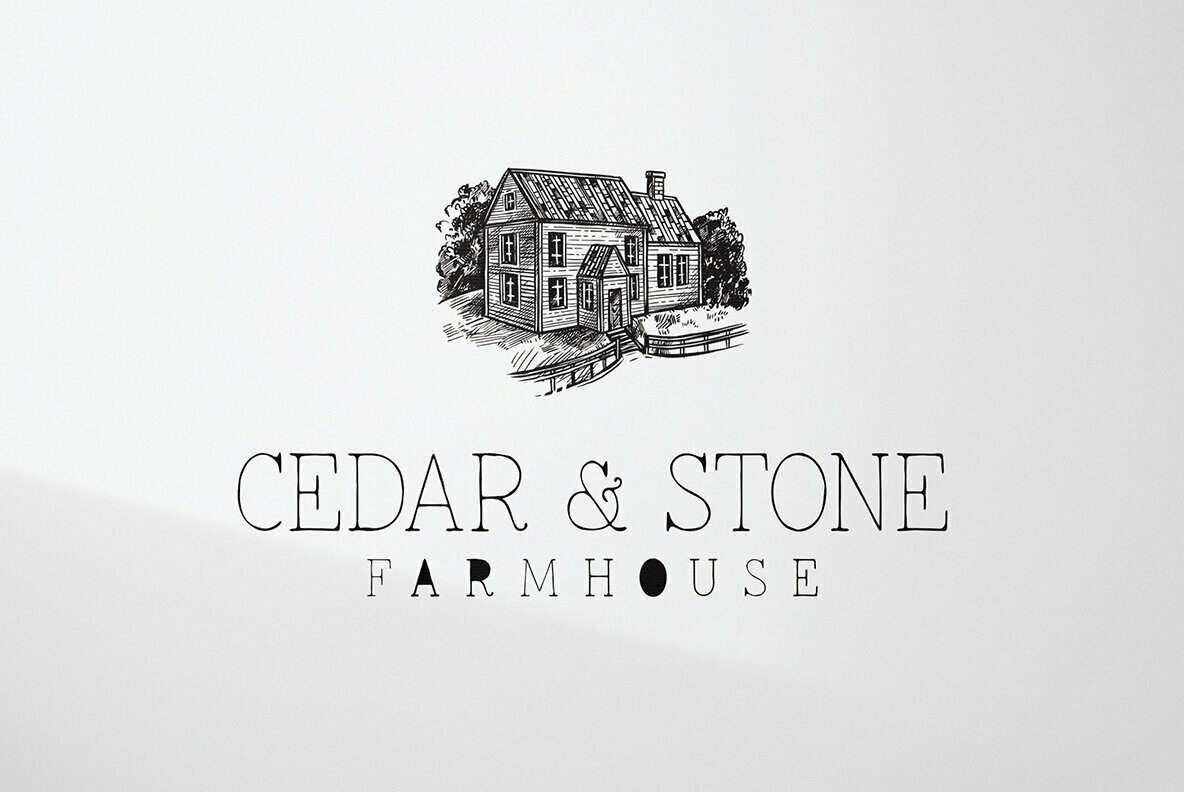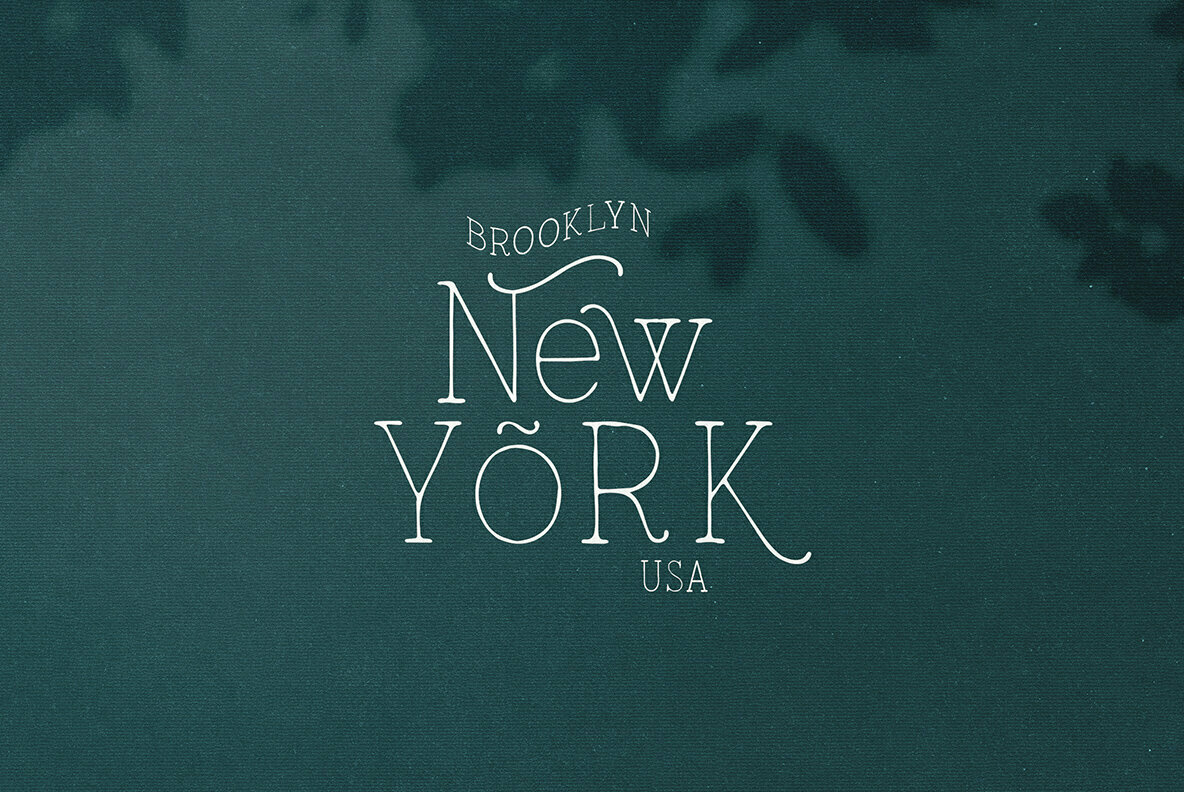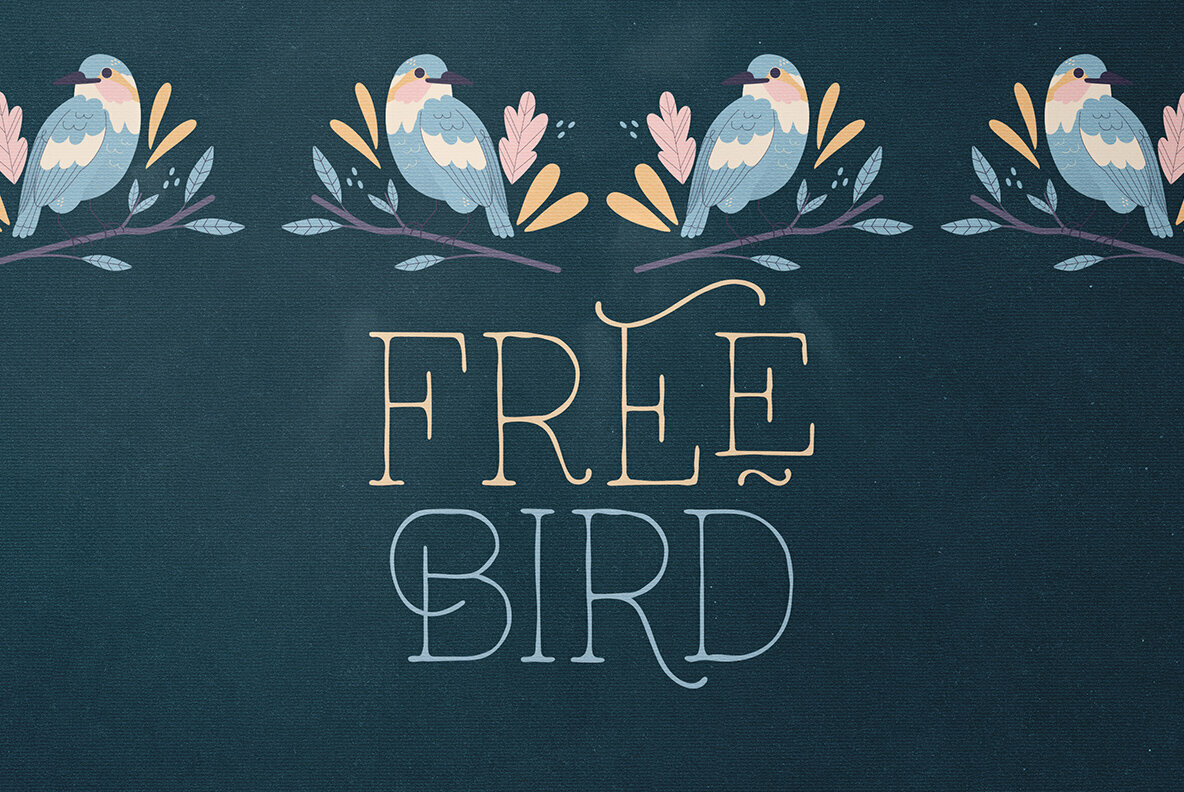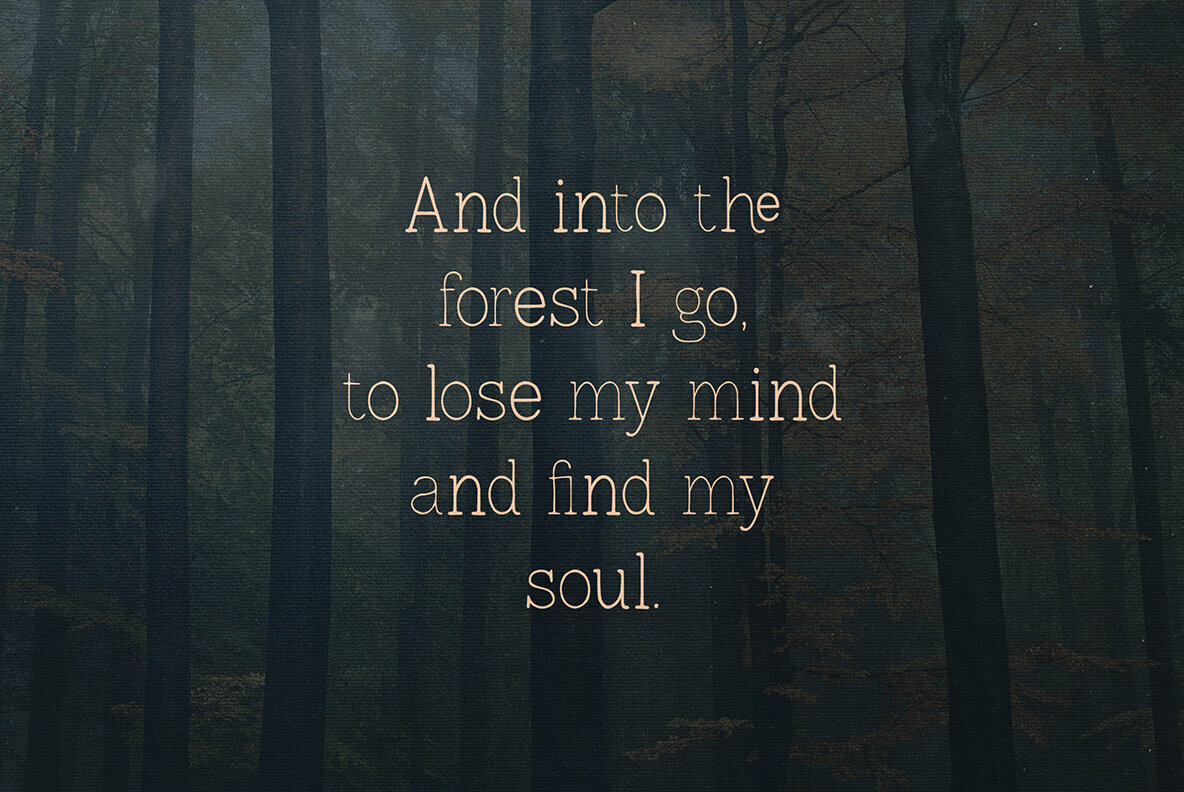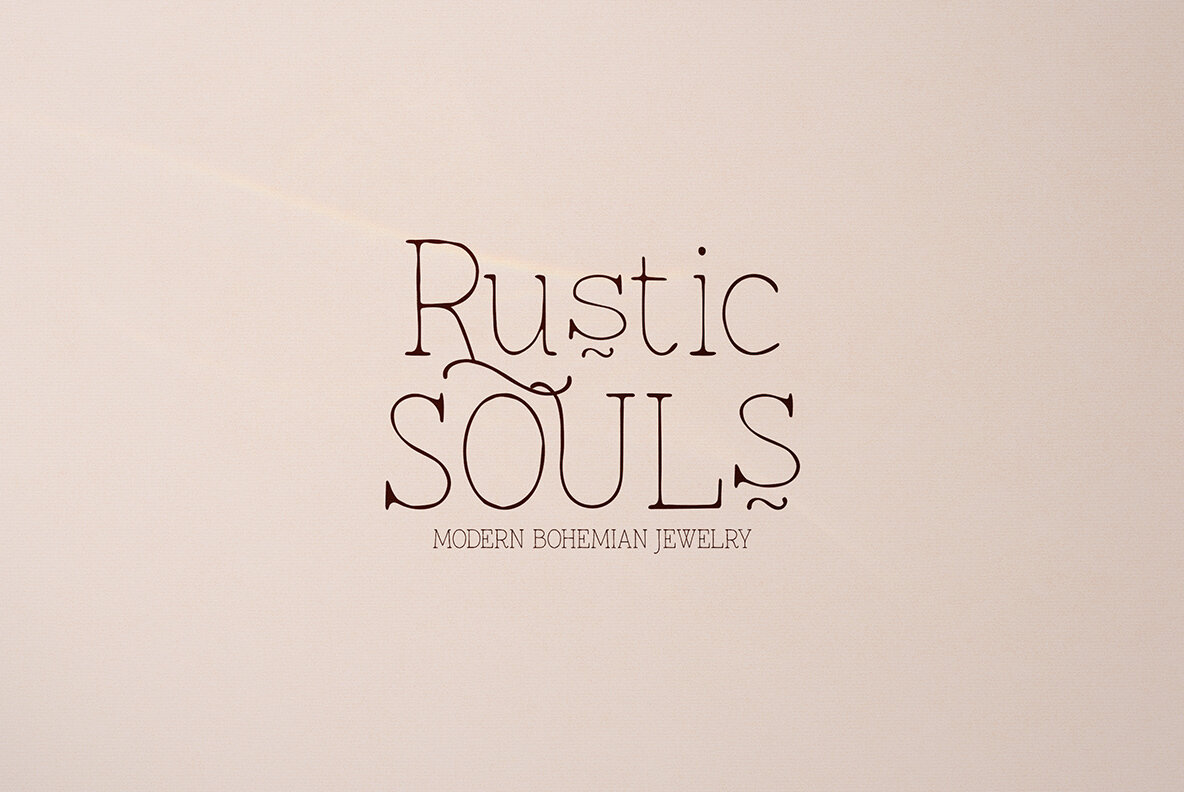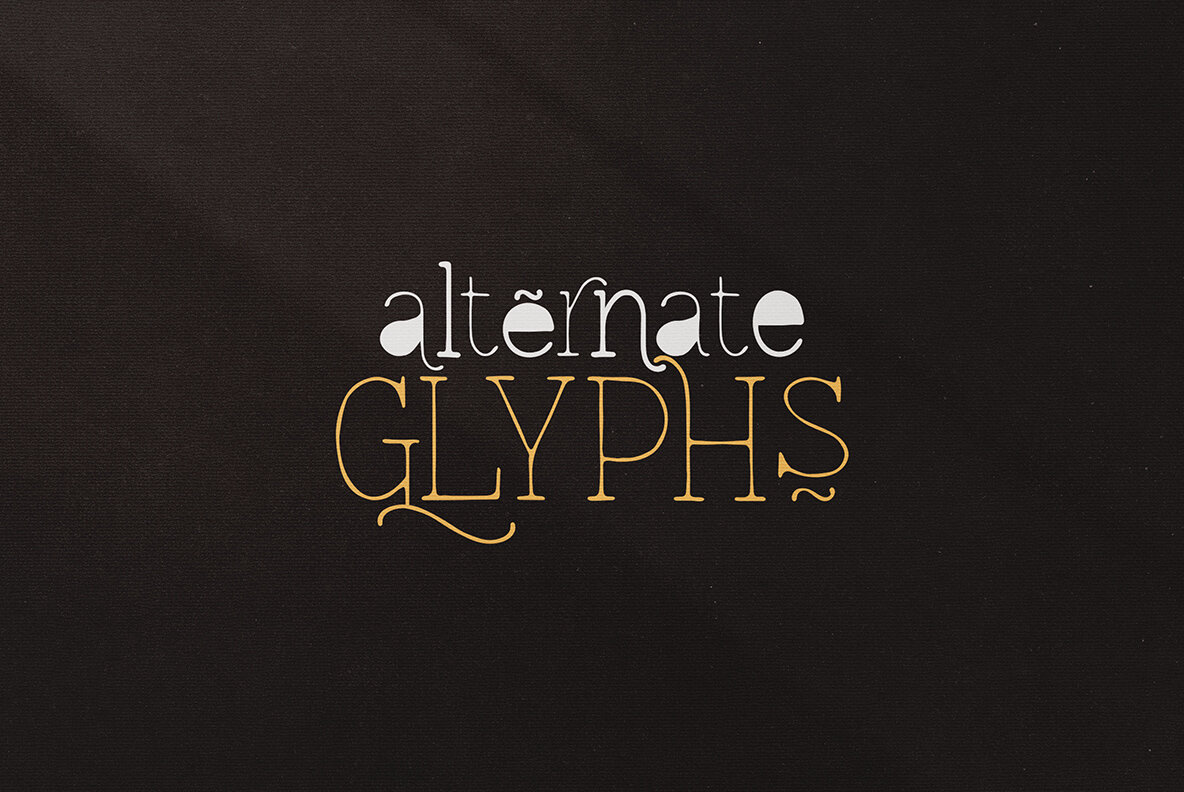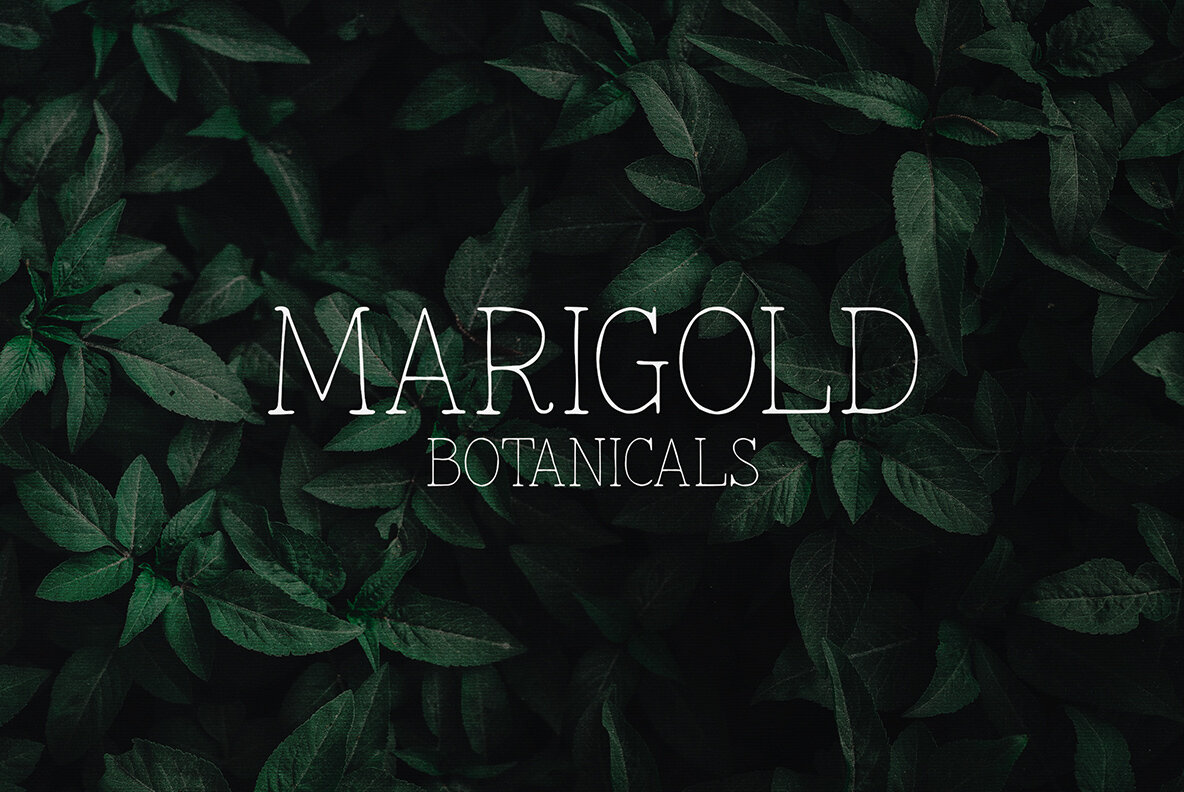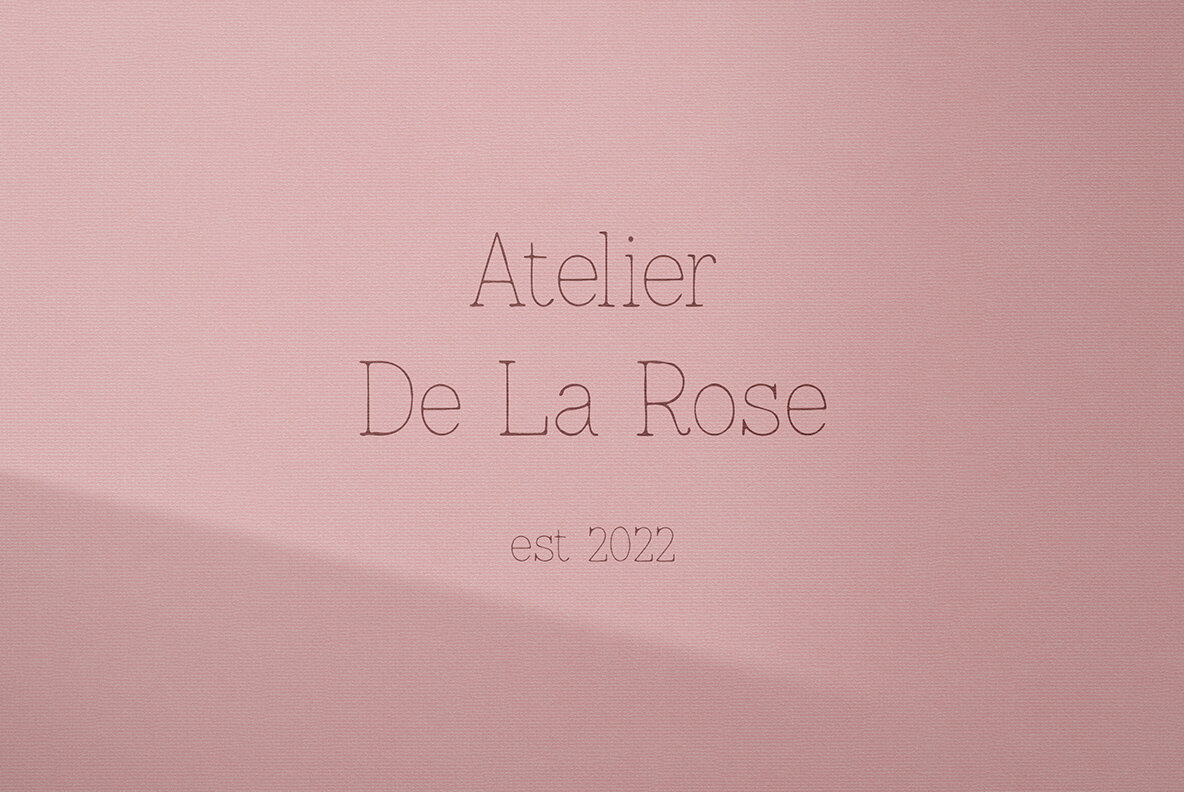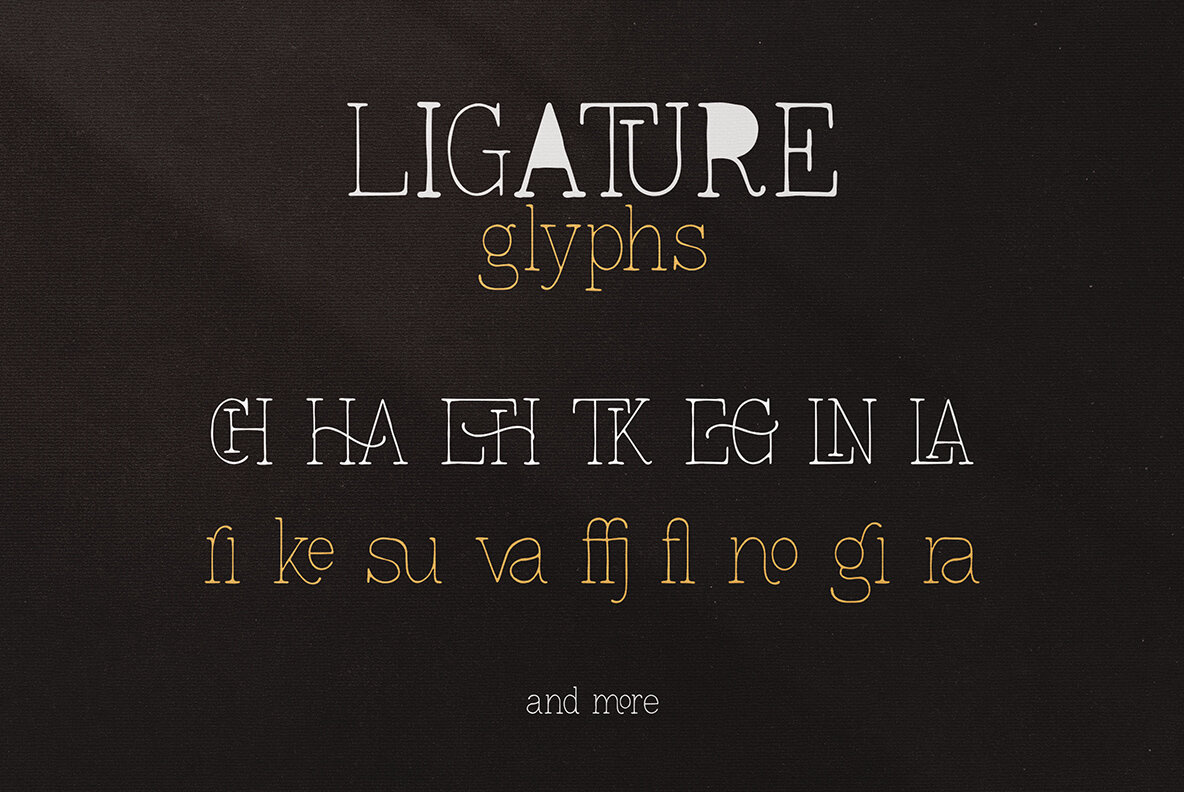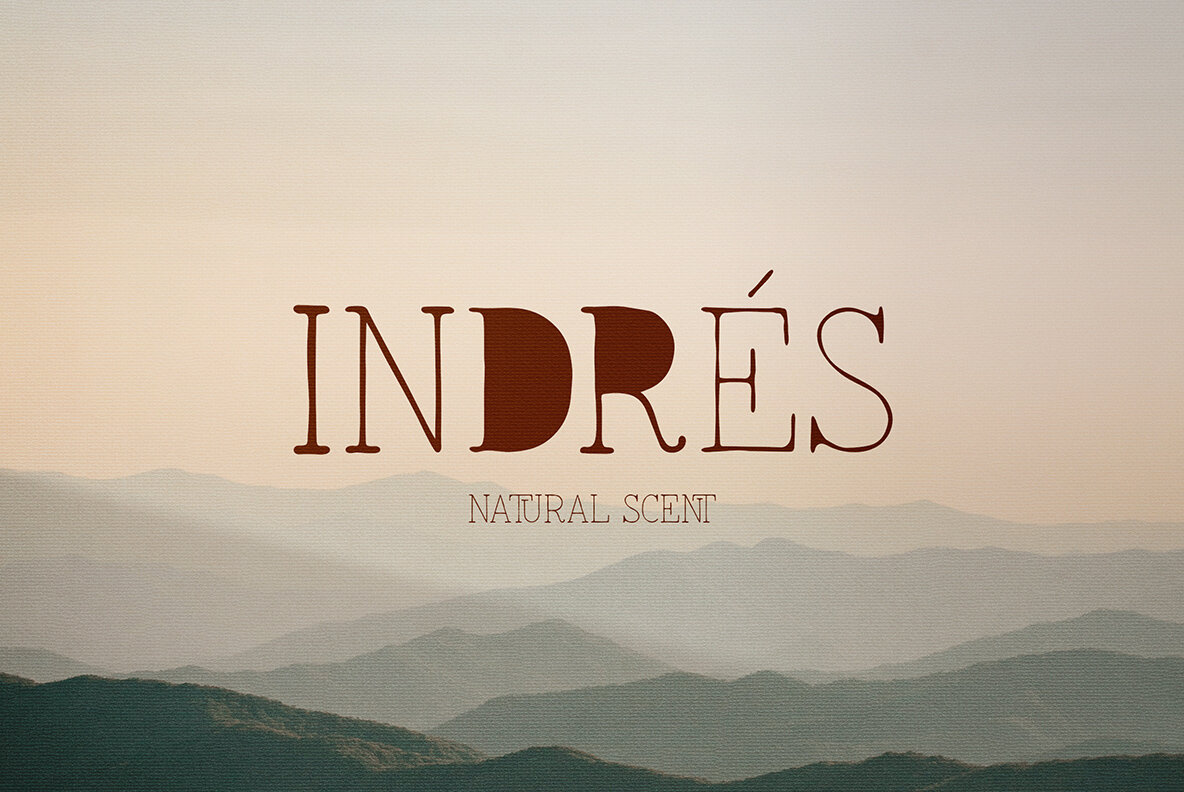
Lonely Moon Font
Lonely Moon, a captivating handcrafted typeface, is your go-to option for adding a retro touch to your designs. It features three distinct fonts, complete with alternate and ligature glyphs, making it ideal for a variety of design projects. From branding and packaging to magazine headers, this versatile typeface thrives in both large and small sizes. To access alternate glyphs in design software, use the Glyphs panel in Adobe InDesign, Illustrator, or Photoshop. This design-friendly typeface elevates every project, whether it's a stylish text overlay on a background image or a home-ware design. Please note that mockups and backgrounds are not included.Lonely Moon: Handcrafted Retro Slab Serif